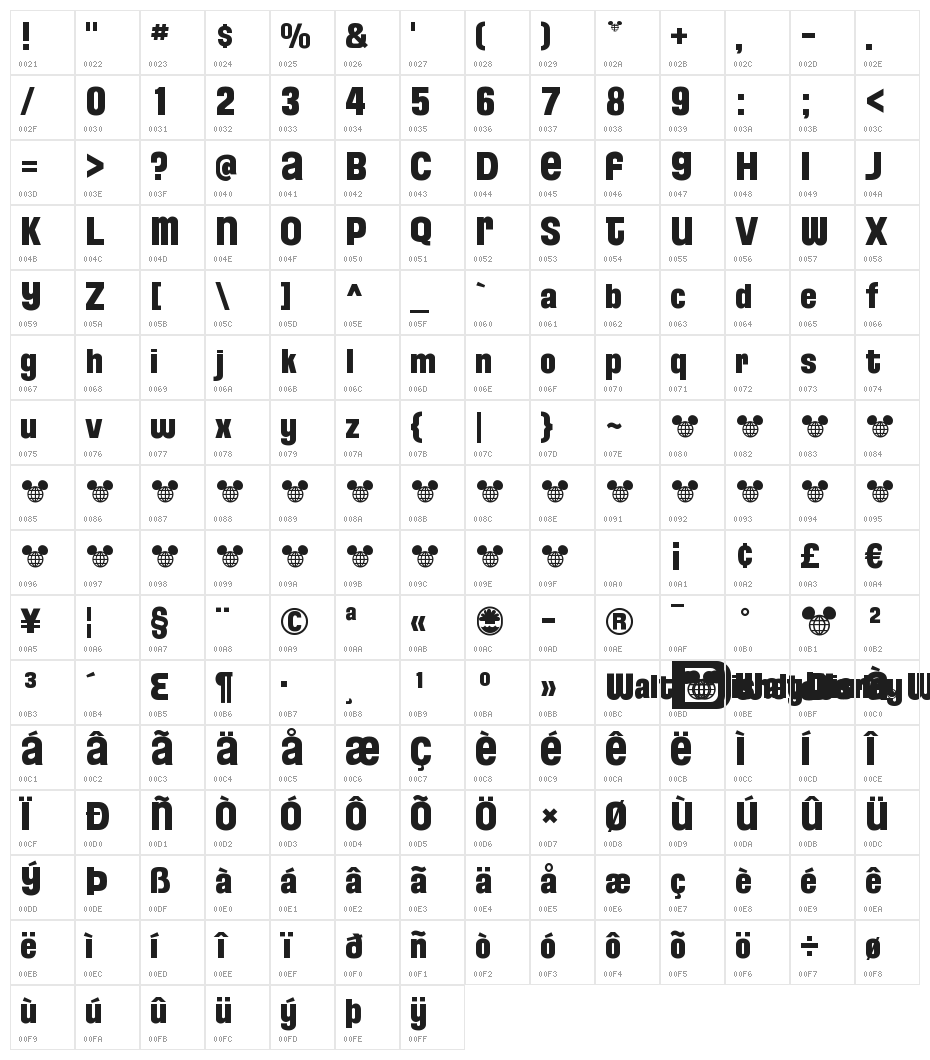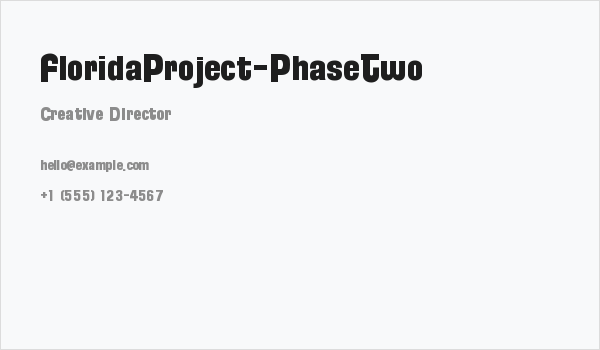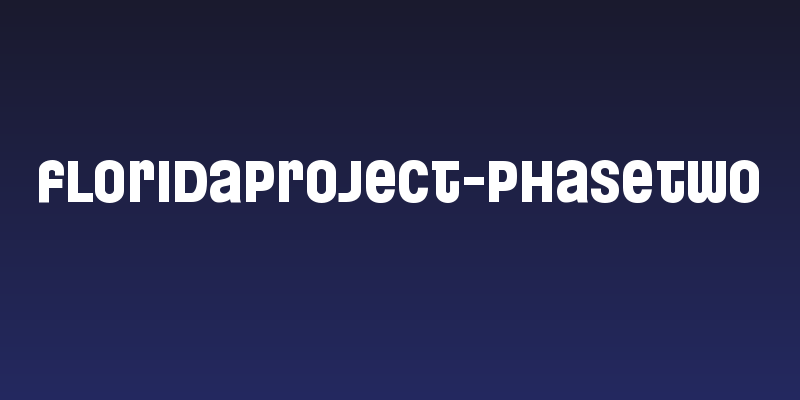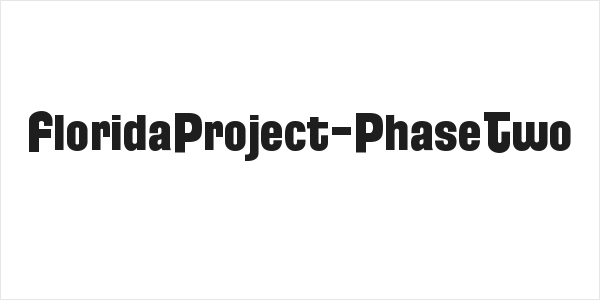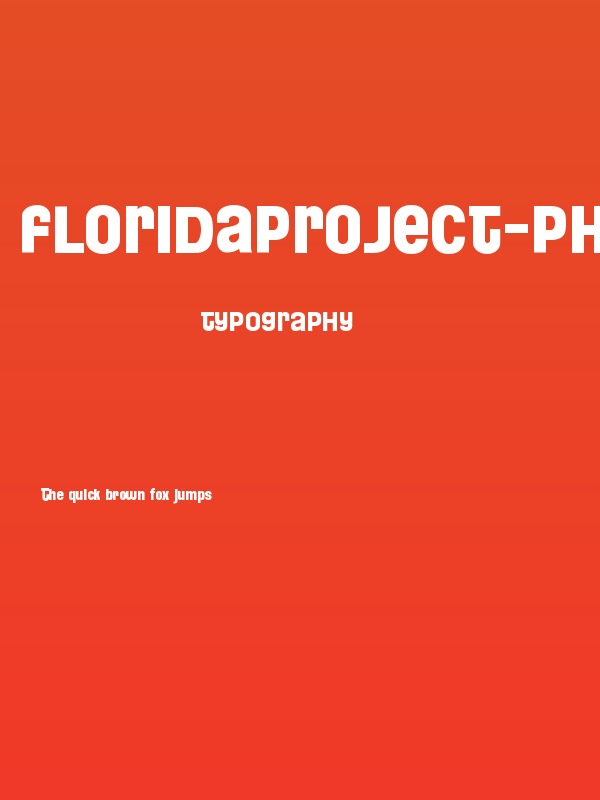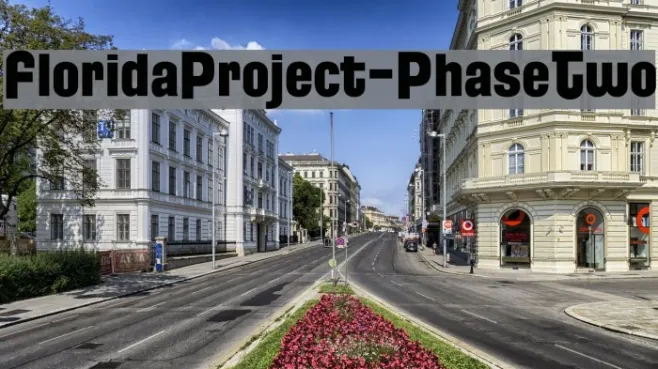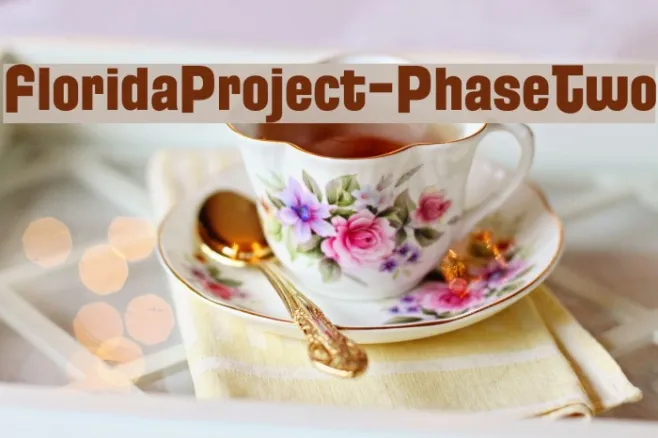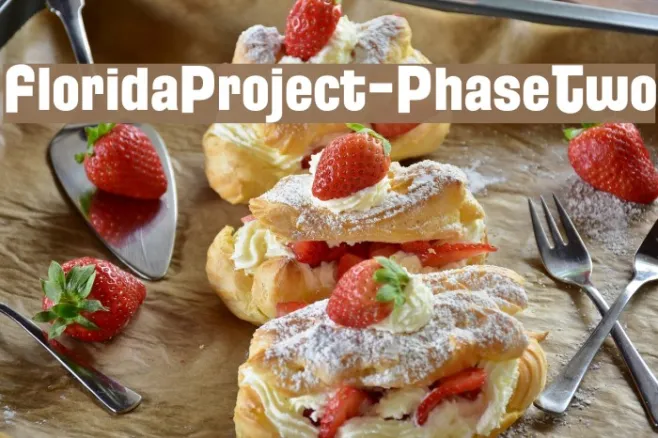
FloridaProject-PhaseTwo Font
FloridaProject-PhaseTwo Description
This font features bold, blocky characters with a strong presence, making it ideal for attention-grabbing headlines and impactful designs. The uppercase and lowercase letters maintain a consistent weight, contributing to a cohesive and uniform appearance. The numerals and special characters are designed with the same boldness, ensuring they stand out in any context. The font's overall style is modern and assertive, with a slight retro influence, making it versatile for various design projects.
| Proposed Projects | Ideal for posters, logos, branding materials, and any design requiring a bold statement. |